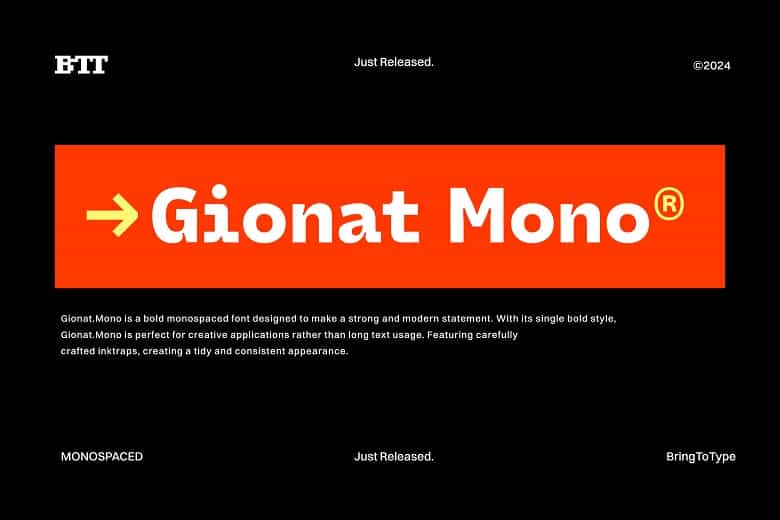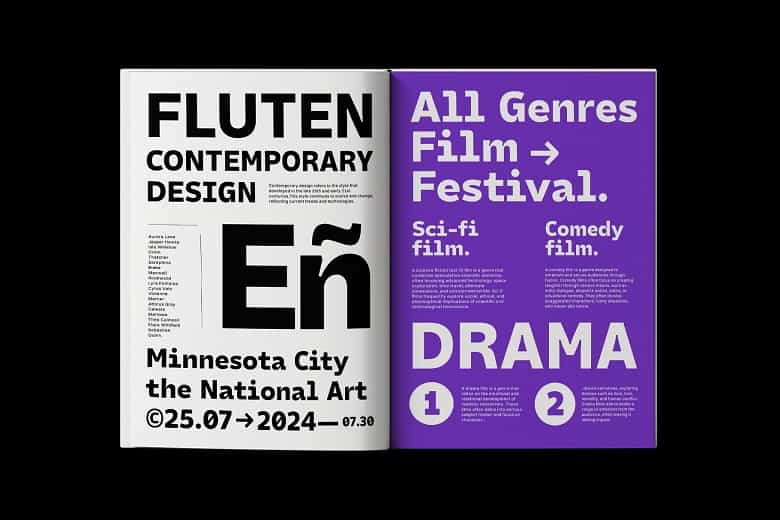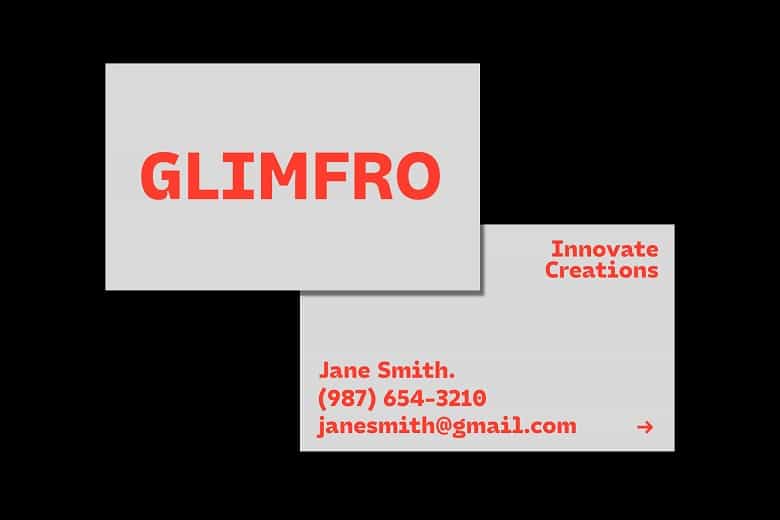
Gionat Mono is a modern monospace sans serif font that is perfect for any project for which you want to stand out and be noticed. Due to its single bold style, Gionat Mono font suits best for the design related purposes than for texts. Including such techniques as ink traps, which give the design a neat and harmonious look.